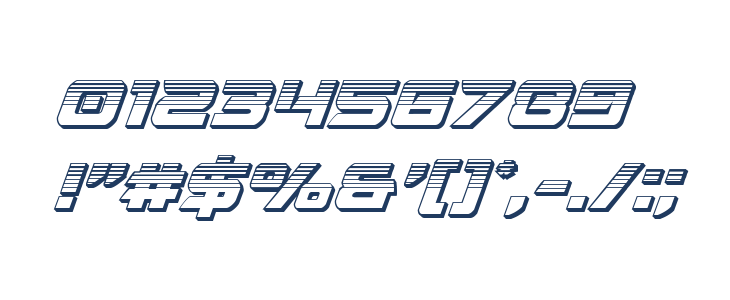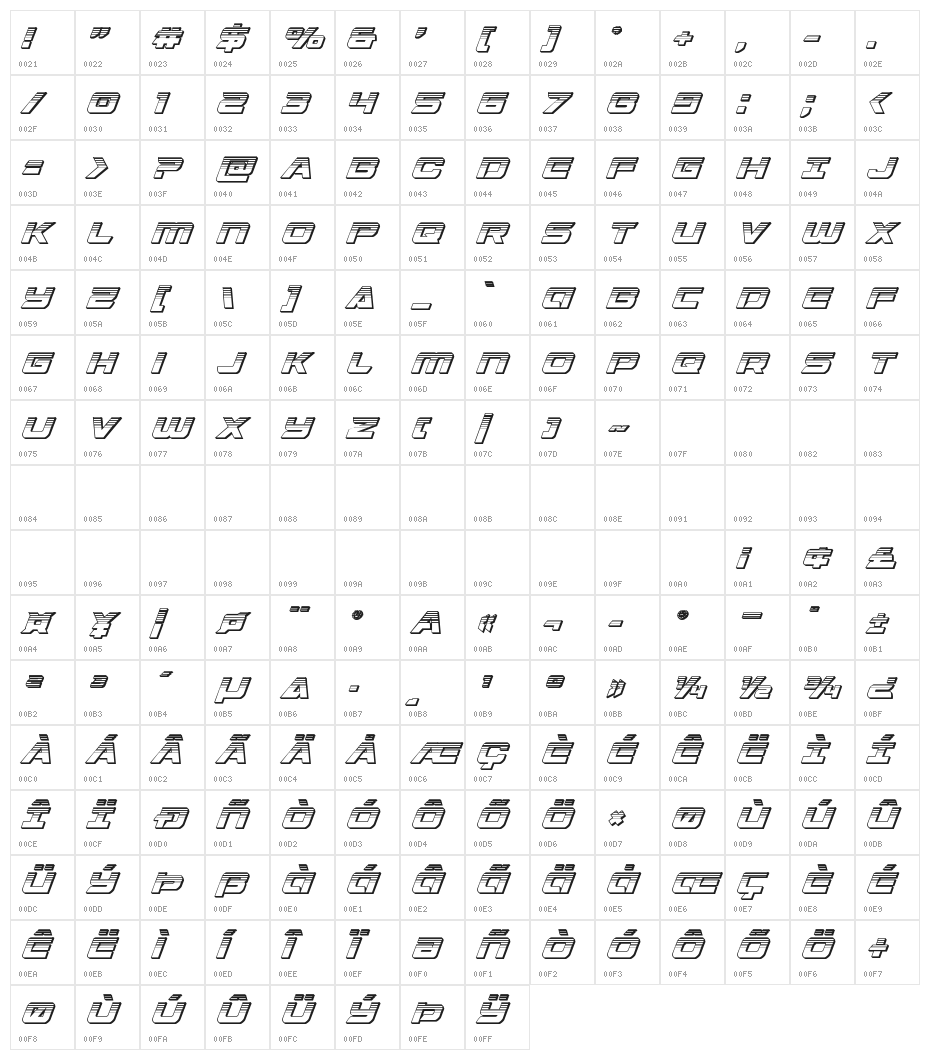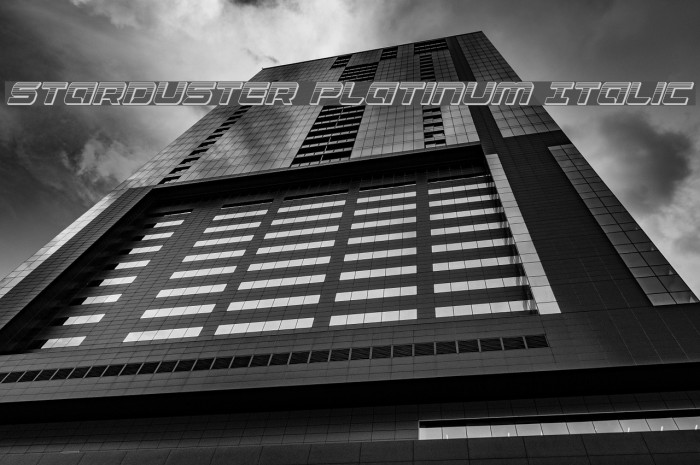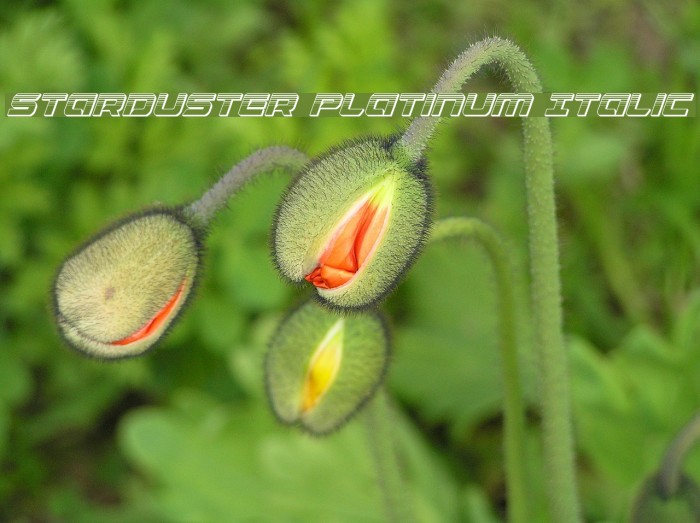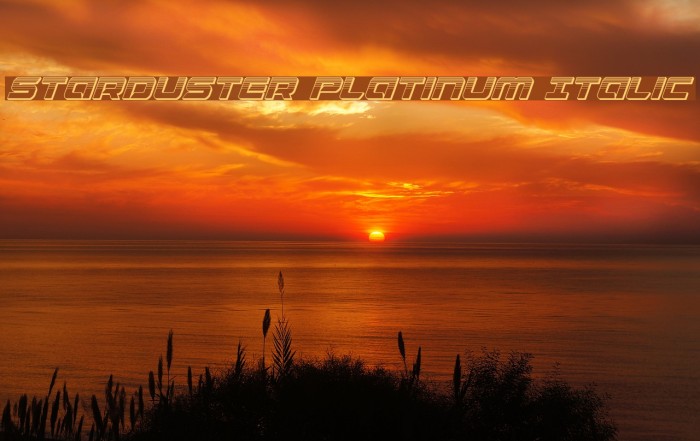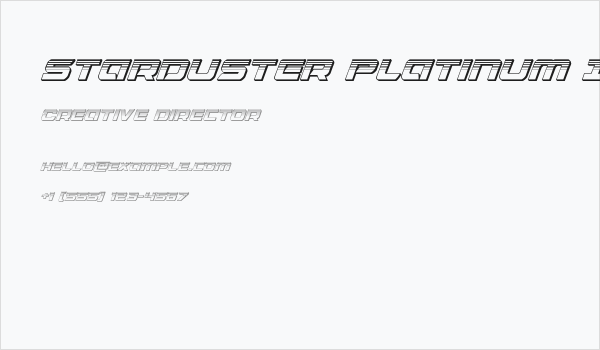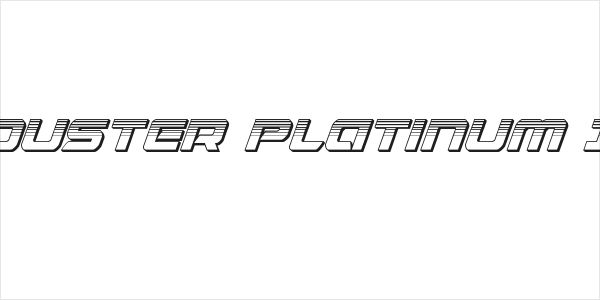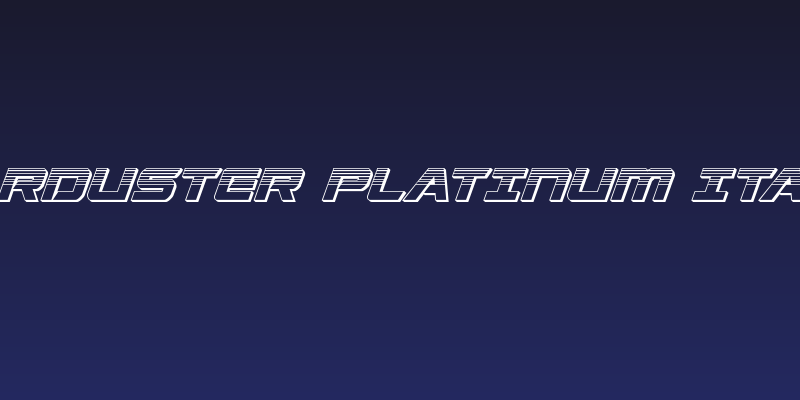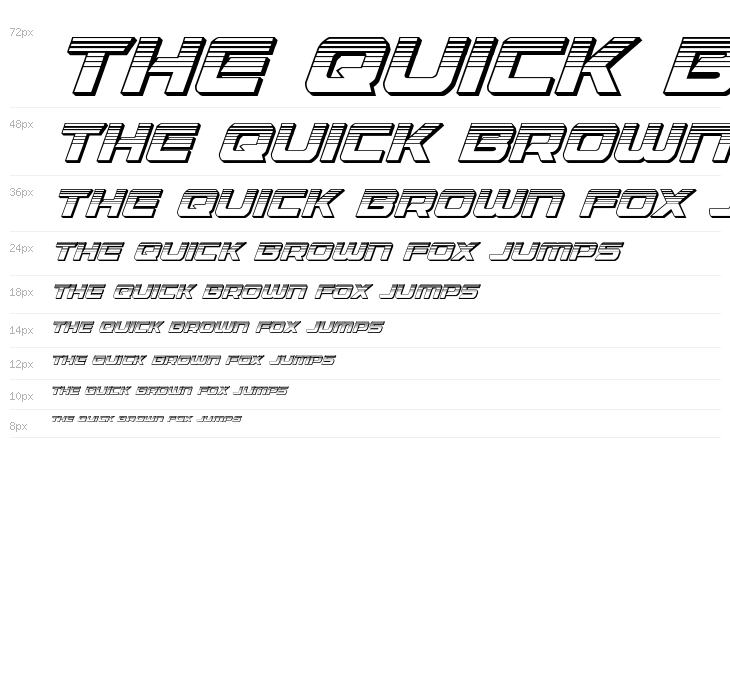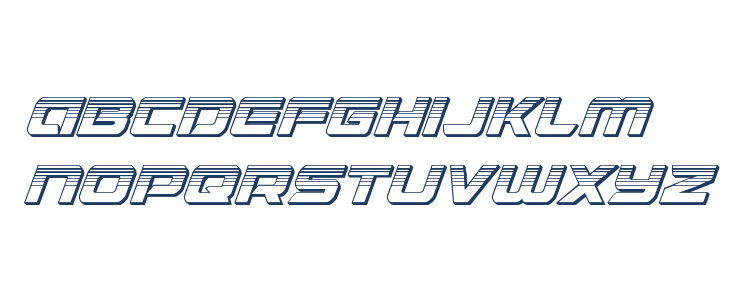
Starduster Platinum Italic Font
Starduster Platinum Italic Description
This font features a futuristic and dynamic design with a strong emphasis on geometric shapes and lines. The characters are outlined with multiple parallel lines, creating a sense of depth and movement. The italic style adds a forward-leaning, energetic feel, making it ideal for projects that require a modern and edgy look. The uppercase and lowercase letters maintain a consistent style, with numerals and special characters following the same design principles. The overall appearance is bold and eye-catching, suitable for attention-grabbing headlines or logos.
Proposed ProjectsIdeal for sci-fi themed designs, tech company branding, video game titles, and modern advertising campaigns.